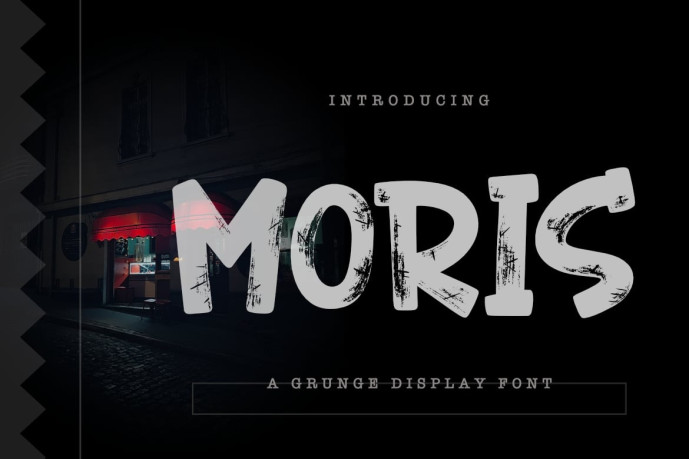
Moris Display Font
Designer: Bayuktx
Moris Display Font delivers a bold fusion of raw texture and unpolished character. Featuring distressed strokes, rough edges, and heavy visual impact, this typeface embraces the chaotic charm of street culture and underground art. Its thick, scraped letterforms make every word feel loud, intense, and unfiltered — ideal for designs that demand presence and attitude.
Inspired by torn posters, graffiti-marked alleys, and gritty urban scenes, Moris captures the authenticity of real-world erosion and handmade expression. Each character carries unique imperfections that enhance its rugged aesthetic, creating a striking atmosphere perfect for dark, rebellious, or high-energy design projects. Whether used at large scale or as a bold accent, Moris instantly adds tension, drama, and unmistakable personality.